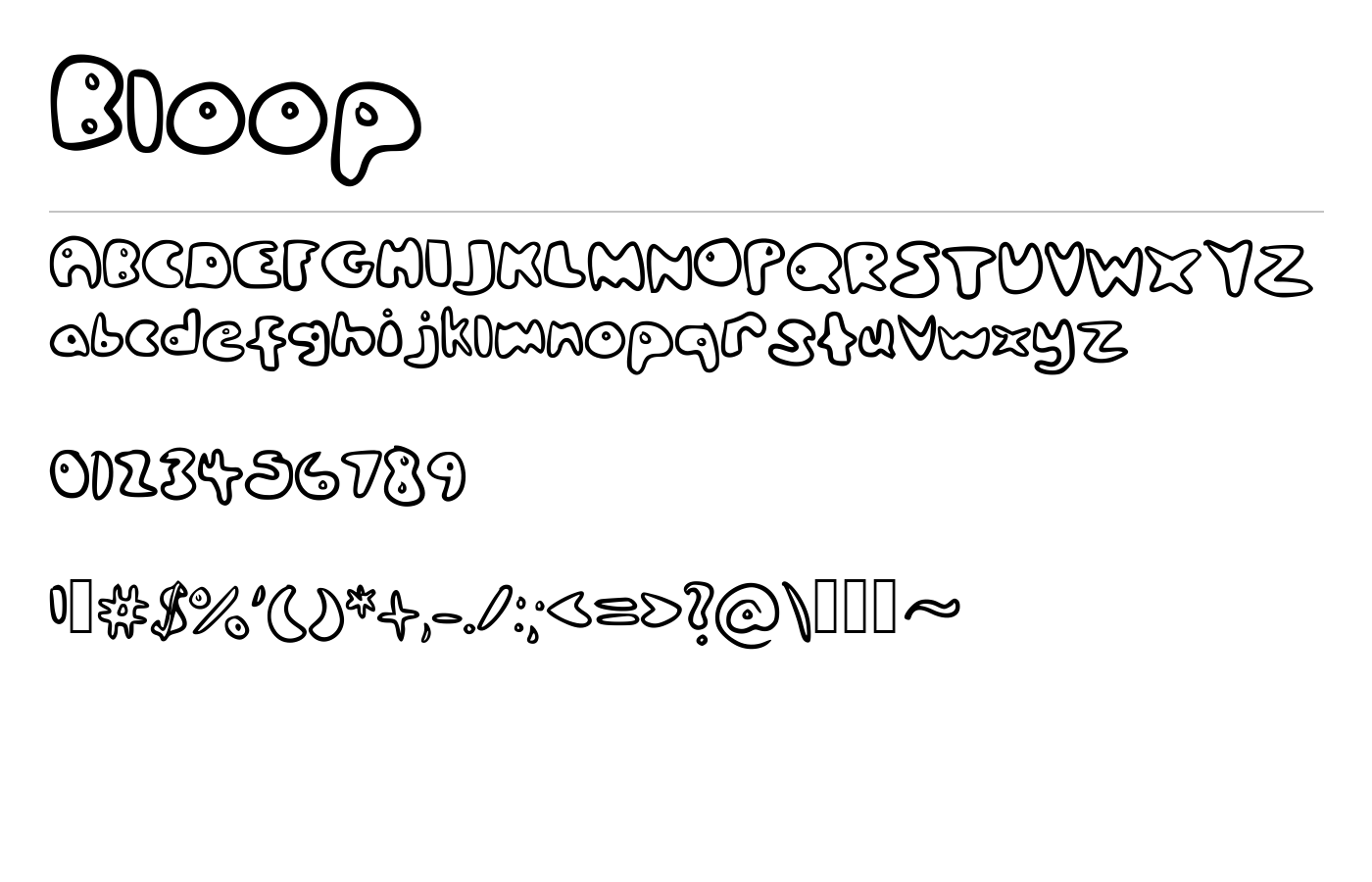
Bloop Font is a fun, playful sans serif typeface characterized by its bubbly, rounded letterforms with a hand-drawn feel. Its irregular shapes and casual style make it perfect for informal designs, children’s projects, and creative branding where a friendly and approachable tone is desired. This font works well in logos, posters, and headlines that want to convey charm and whimsy.
Bloop Font
About Bloop Font